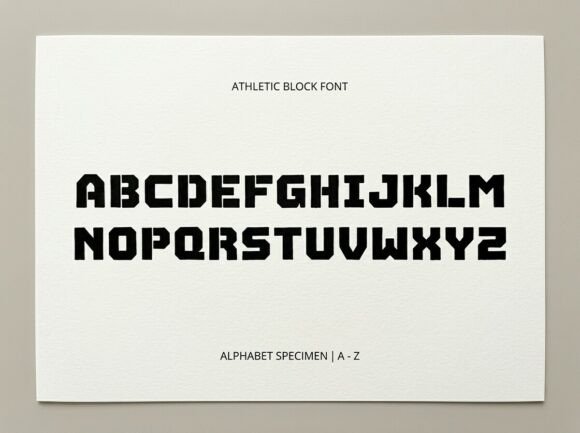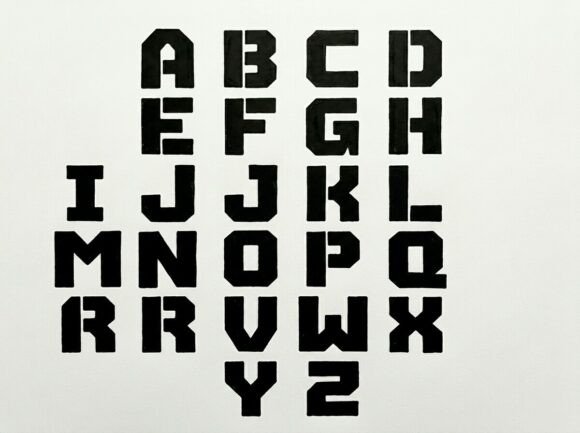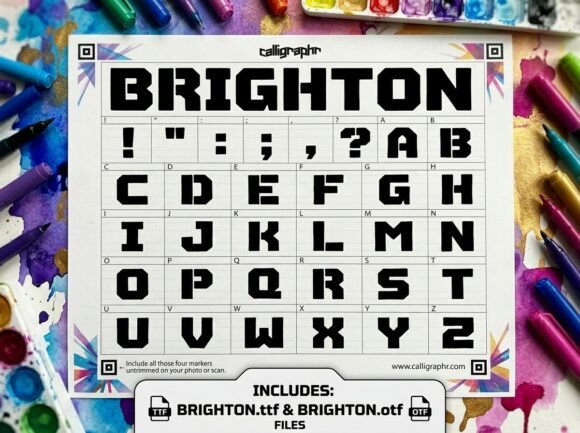
Introducing the Brighton Font: A Stunning Decorative Display Font
Are you tired of using the same old fonts for your creative projects? Look no further than the Brighton Font, a unique and artistic display font designed to make a statement. With its strong visual personality and decorative elements, this font is perfect for creators who want to break away from the ordinary and add a touch of elegance to their work.
What Makes Brighton Font Special?
The Brighton Font is a decorative display font that is sure to turn heads. Its unique artistic elements and strong visual personality make it perfect for bold headlines, artistic logos, and creative packaging. Whether you’re a designer, craftsperson, or DIY enthusiast, this font is versatile enough to meet your needs while maintaining a professional and polished finish.
Important Note: All-Caps Display Typeface
IMPORTANT NOTE BEFORE PURCHASE: The Brighton Font is an ALL-CAPS (Uppercase Only) display typeface, which means it does not include lowercase letters. This font is specifically designed for high-impact headlines, logos, and decorative initials where every letter is a work of art. So, if you’re looking for a font for body text or other applications that require lowercase letters, this may not be the best choice for you.
Use Cases for Brighton Font
The Brighton Font is perfect for a variety of creative projects, including:
• Headlines and Titles: Use the Brighton Font to create eye-catching headlines and titles for your blog posts, articles, and social media graphics.
• Logos and Branding: This font is ideal for creating unique and memorable logos for your business or brand.
• Packaging and Product Design: Add a touch of elegance to your product packaging with the Brighton Font.
• Invitations and Stationery: Use this font to create beautiful and decorative invitations, greeting cards, and stationery.
Tips for Using Brighton Font
To get the most out of the Brighton Font, here are a few tips to keep in mind:
• Use it sparingly: Because of its decorative nature, it’s best to use the Brighton Font sparingly to avoid overwhelming your design.
• Pair it with a simple font: Pair the Brighton Font with a simple font for body text to create visual contrast and make your design more readable.
• Experiment with colors and textures: Don’t be afraid to experiment with different colors and textures to add depth and interest to your design.
The Brighton Font is a stunning decorative display font that is sure to elevate your creative projects. With its unique artistic elements and strong visual personality, this font is perfect for creators who want to break away from the ordinary. Whether you’re a designer, craftsperson, or DIY enthusiast, this font is versatile enough to meet your needs while maintaining a professional and polished finish. So why wait? Purchase the Brighton Font today and start creating stunning designs that turn heads!